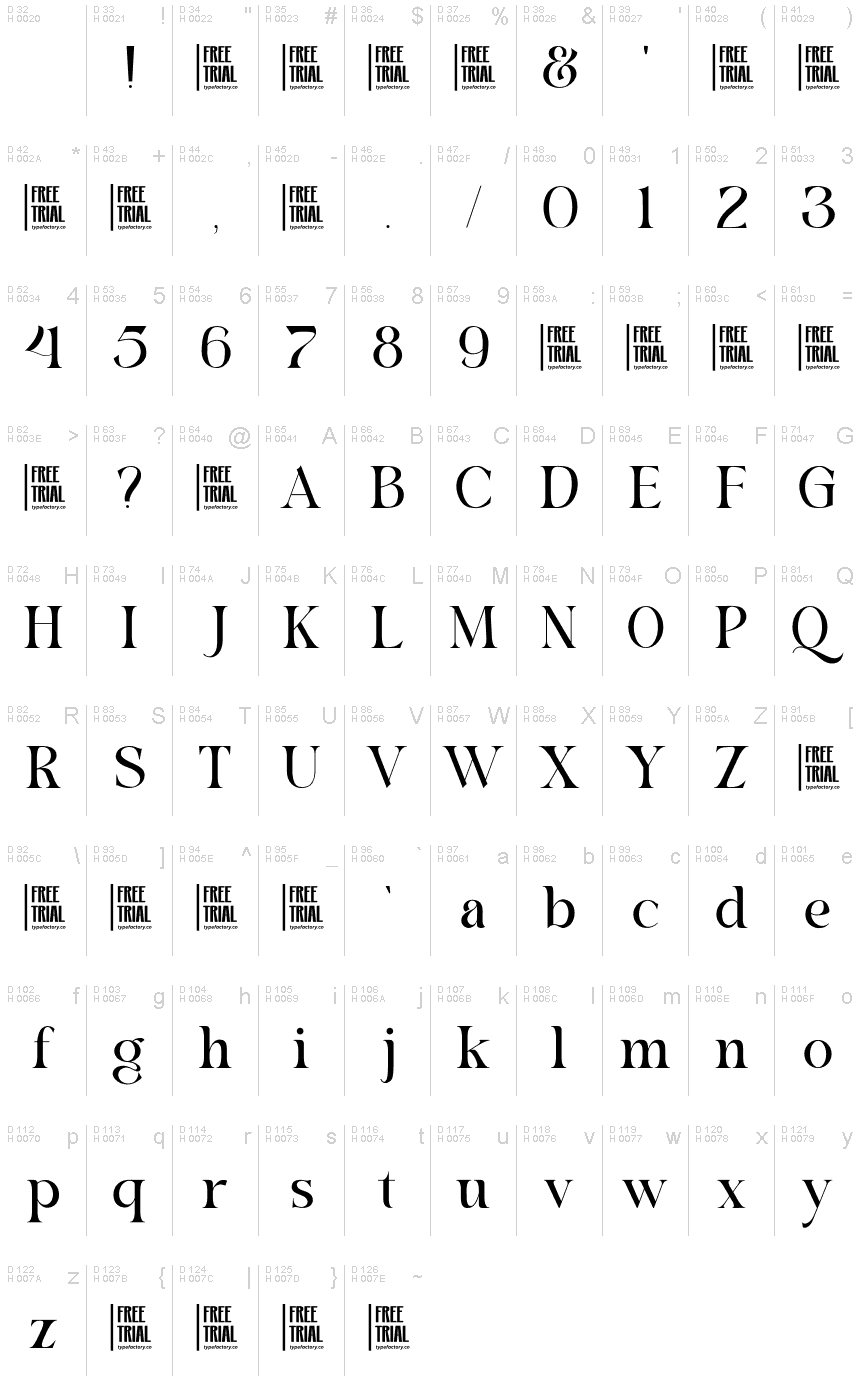
Baguile Free Trial
Baguile, designed by Typefactoryco, is a sophisticated serif font that adds a touch of elegance to any project. Its simplicity and clean lines make it versatile and suitable for a wide range of applications.
Whether you're designing wedding invitations, elegant branding materials, or professional documents, Baguile's timeless style will elevate your work to new levels of sophistication.
With its exquisite yet subtle look, this font is perfect for creating a refined and polished aesthetic in any project.